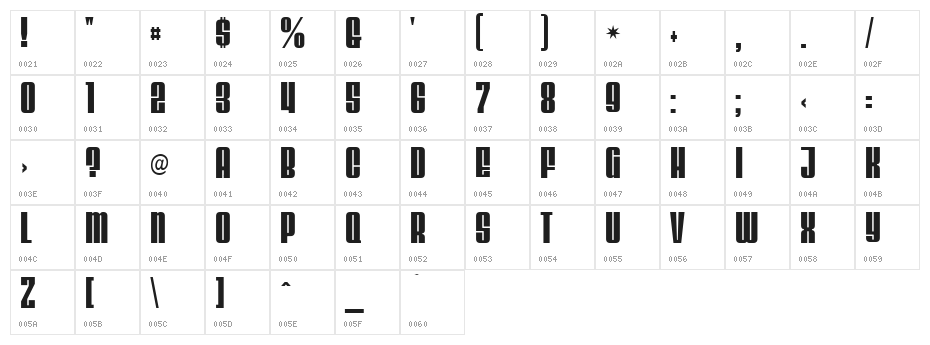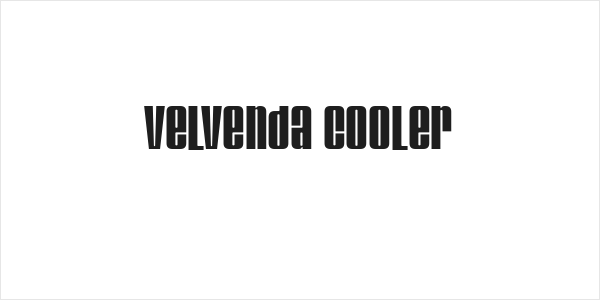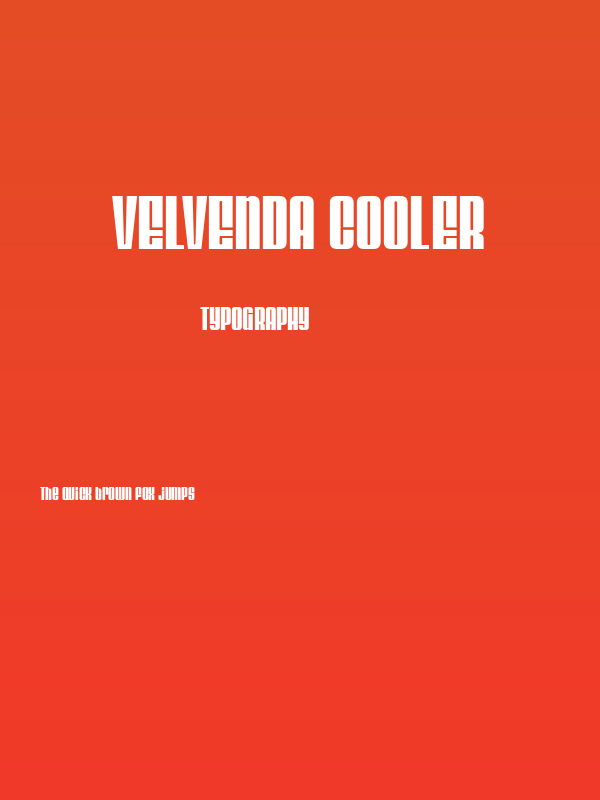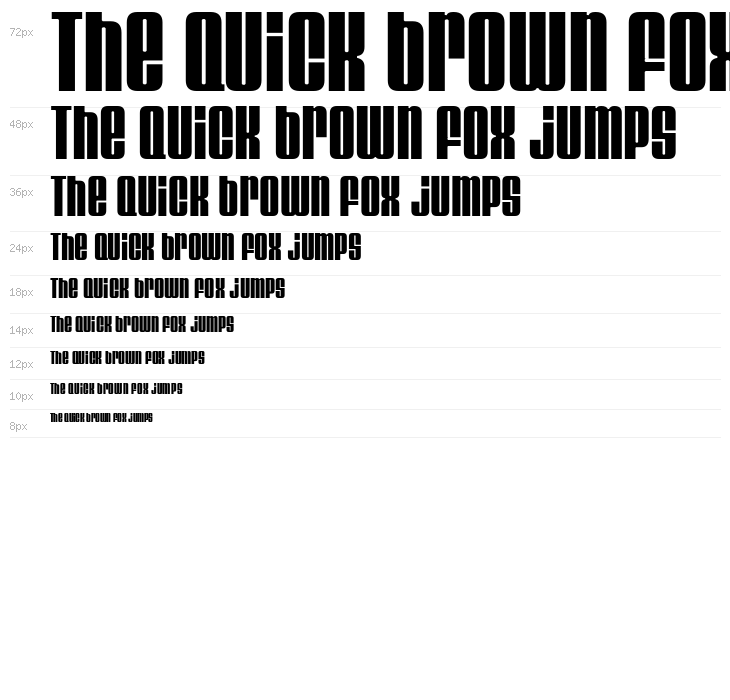
Velvenda Cooler Font
Velvenda Cooler Description
This font features a bold and impactful design with thick, block-like characters that convey strength and modernity. The uppercase letters are uniform in height, creating a cohesive and structured appearance. The lowercase letters maintain the same boldness, ensuring readability and consistency across different text sizes. The numerals are equally robust, matching the overall aesthetic of the alphabet. Special characters are designed with the same bold strokes, making them stand out effectively. The font's geometric shapes and clean lines make it suitable for creating attention-grabbing headlines and titles.
| Proposed Projects | This font is perfect for branding projects, poster designs, and any application requiring a strong visual impact. It can be used effectively in advertising, packaging, and digital media to draw attention and convey a sense of modernity and strength. |